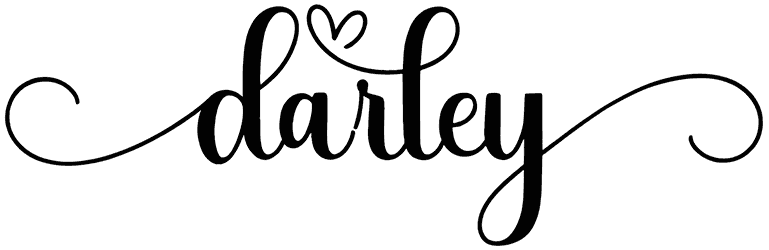
Undoubtedly, impressing the audience is easier than ever with the help of a script font like Amber Florist, which comes with a cursive style and carries a sense of professionalism, respect, vitality, and drama. This heart font is set to be your faithful assistant in designing graphic content, including business cards, logos, invitations, movie posters, and magazines.